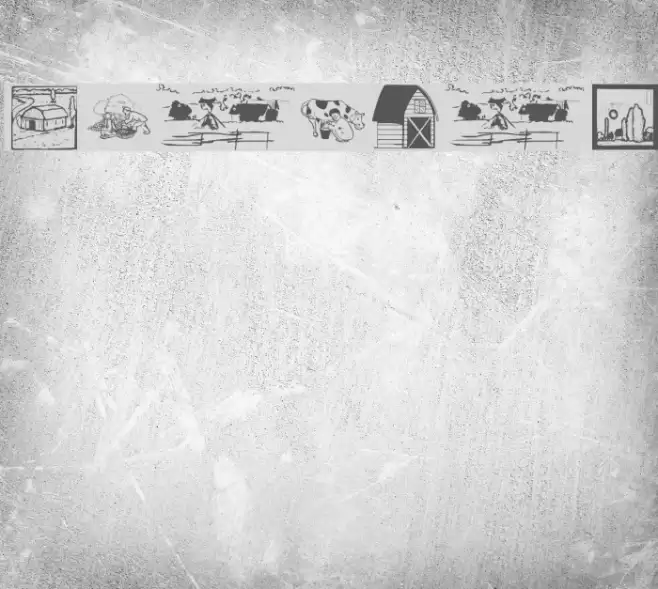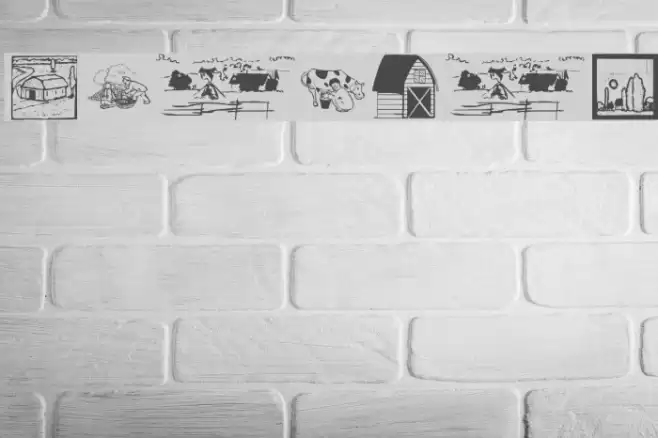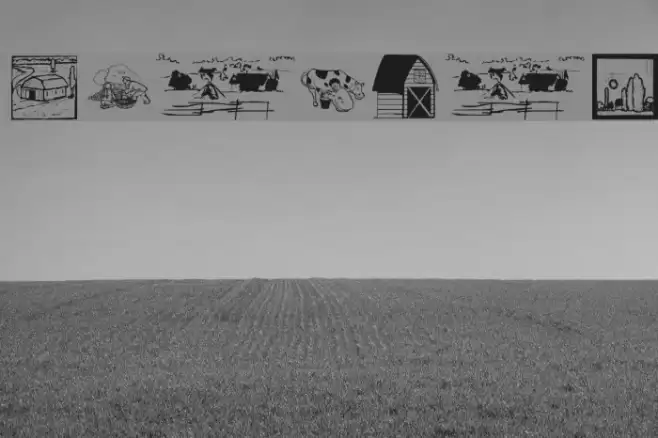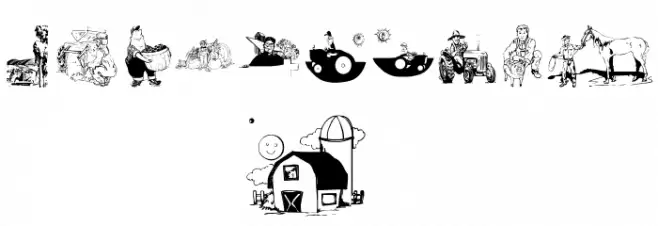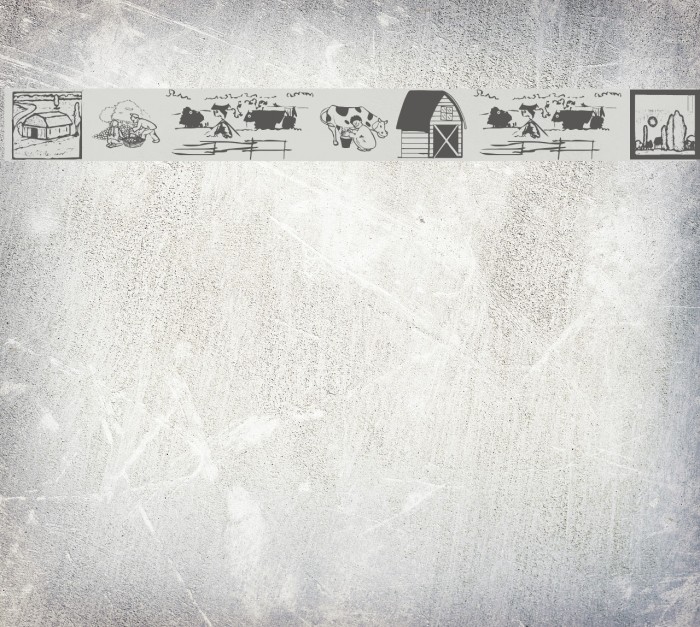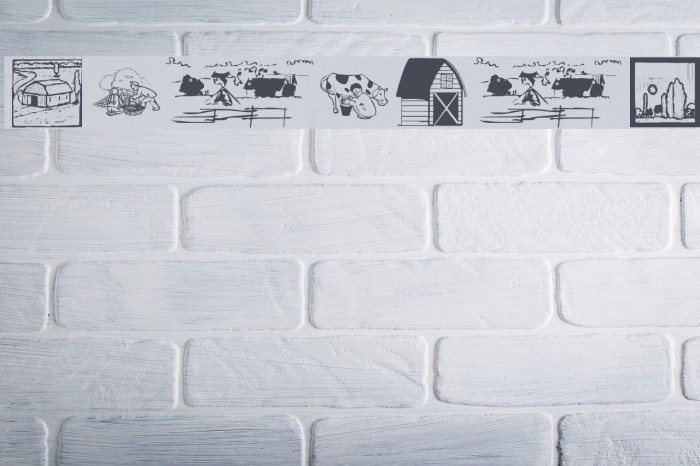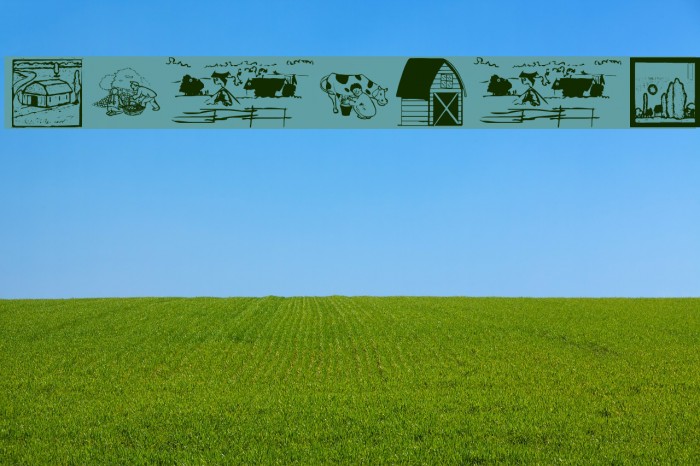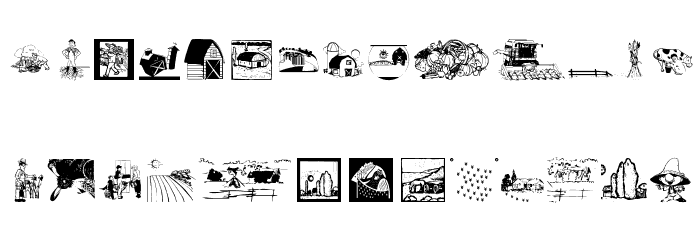
Farmers Font
Farmers Description
A decorative dingbat font featuring detailed black-and-white illustrations related to farming, including barns, tractors, crops, animals, farmers, and rural scenes. Each glyph is a unique farm-themed drawing, offering a playful and rustic visual style.
Farm-themed dingbat font with detailed rural illustrations from Uncategorized fonts.
- Proposed Projects: Children's books, educational materials, farm event flyers, themed party invitations, scrapbooking, and rural branding.
- Overall Style: Decorative, Rustic, Playful
- Use Case: Illustrative accents, icons, and decorative elements for print or digital farm-related projects.